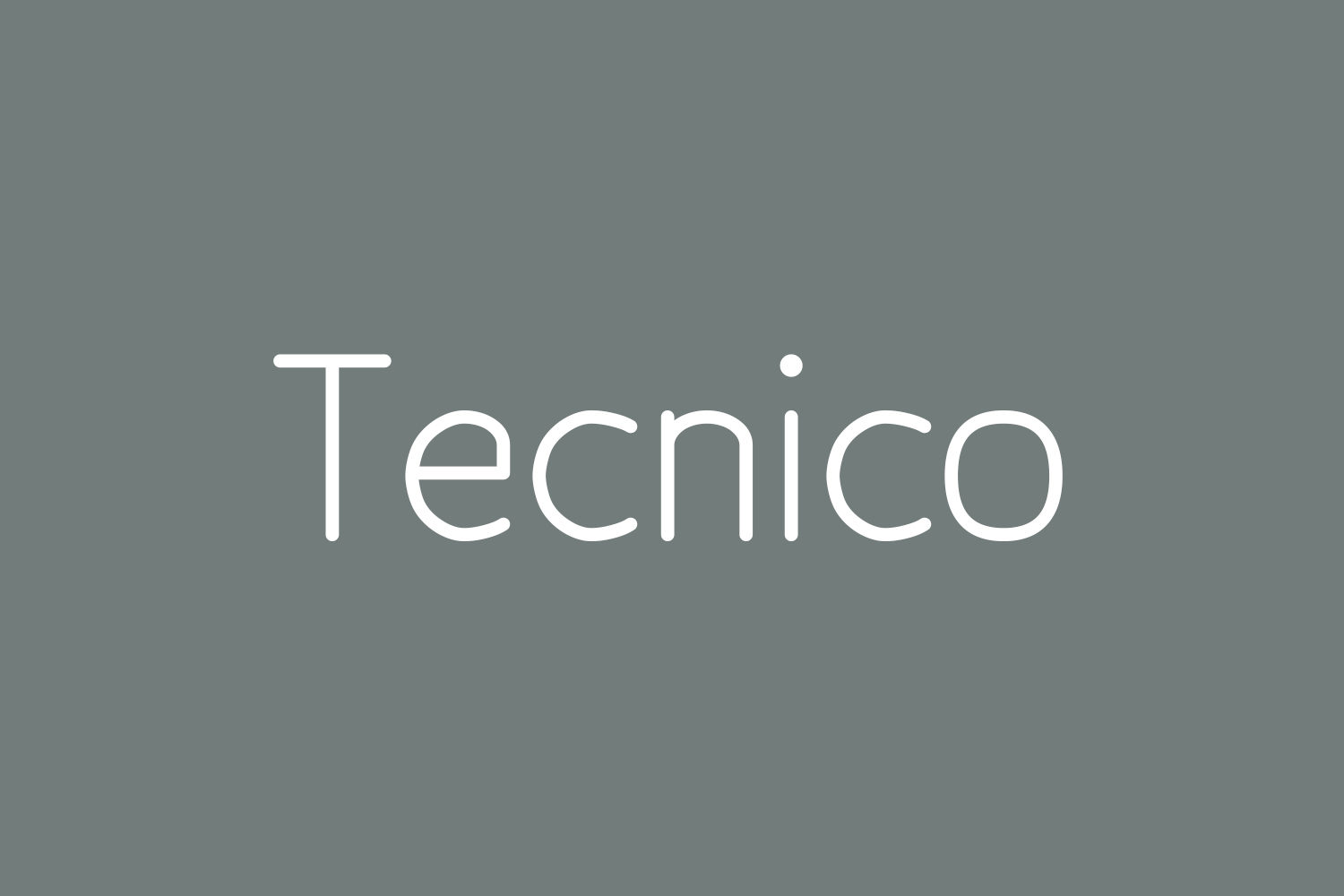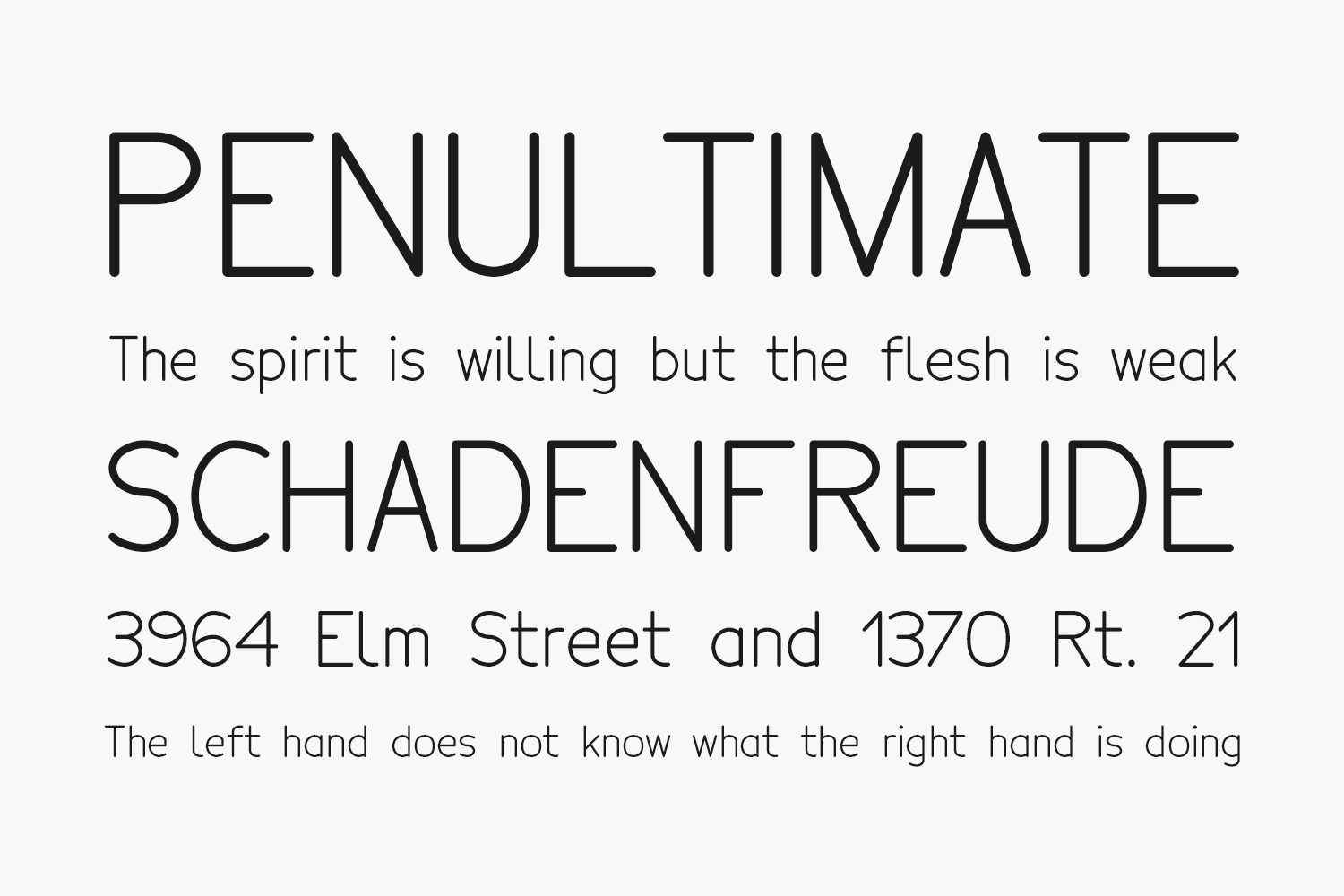
Tecnico represents the standardized writing used in architectural and engineering plans, and was created following the indications of IRAM 4503.
Designed by Cristhian Gomez